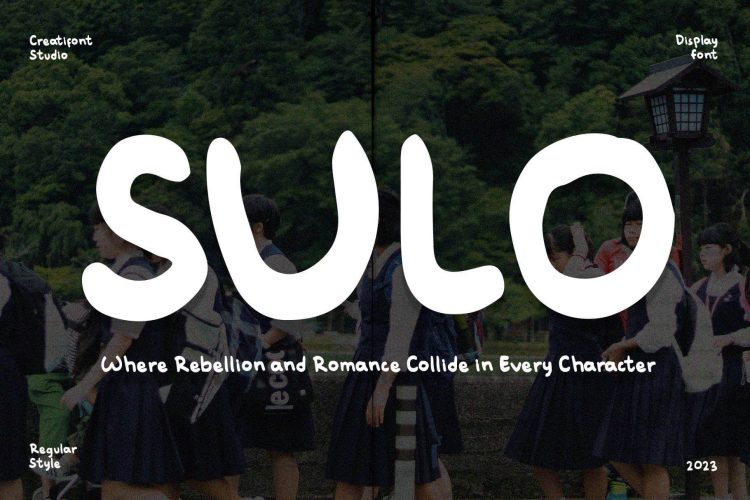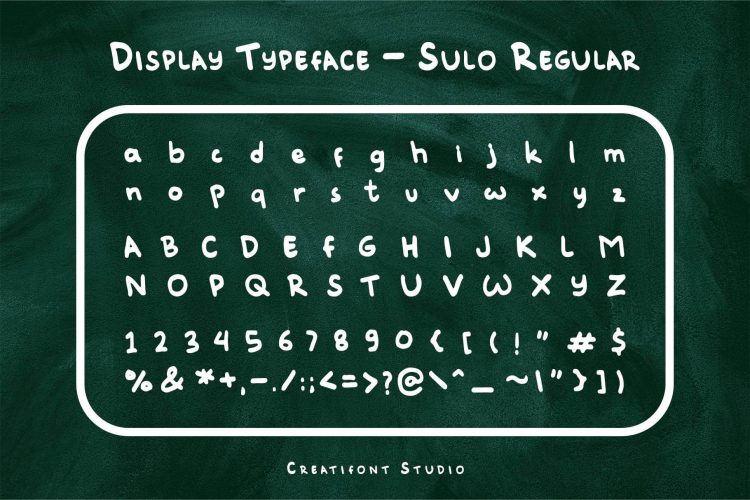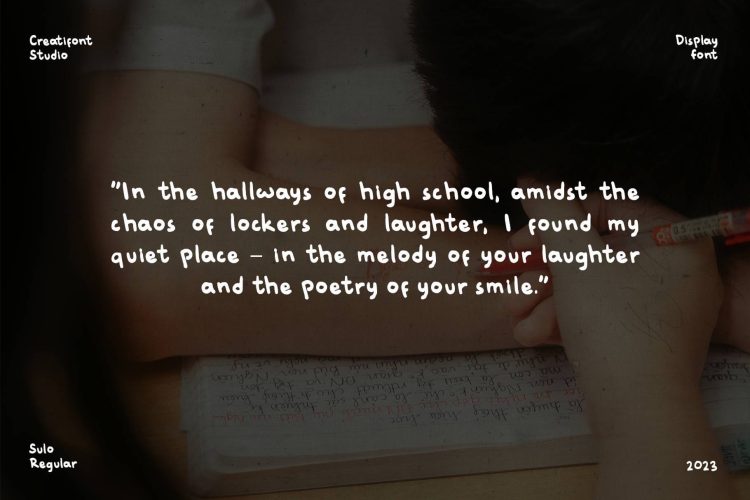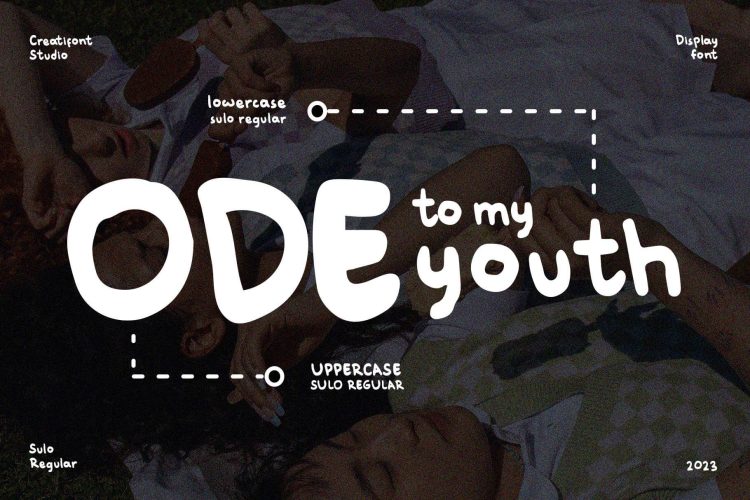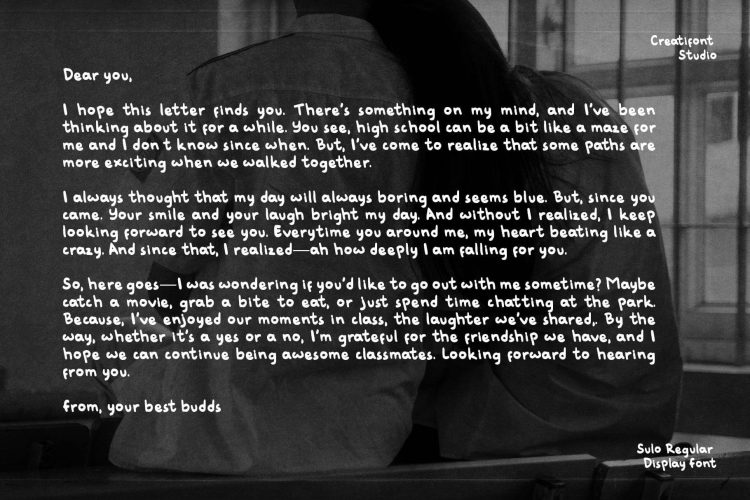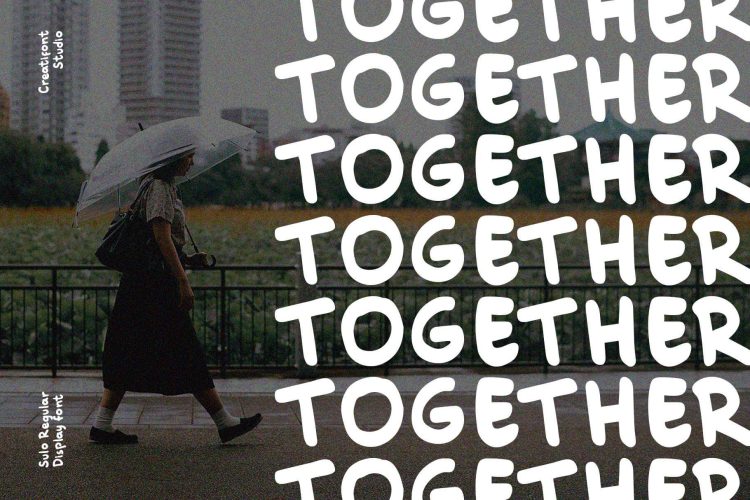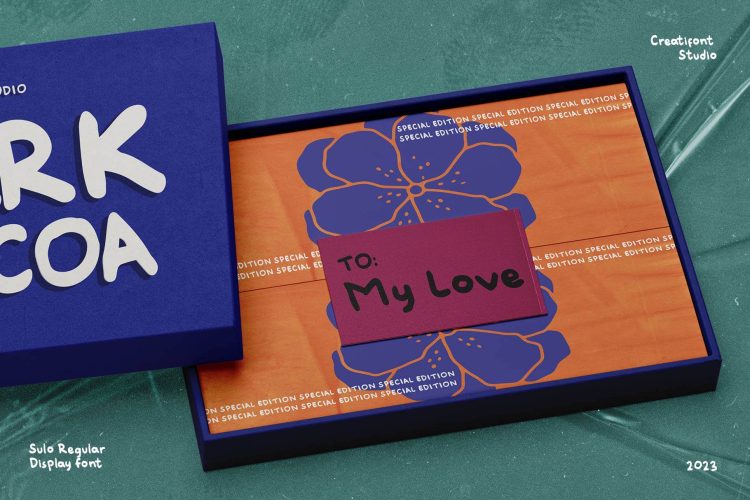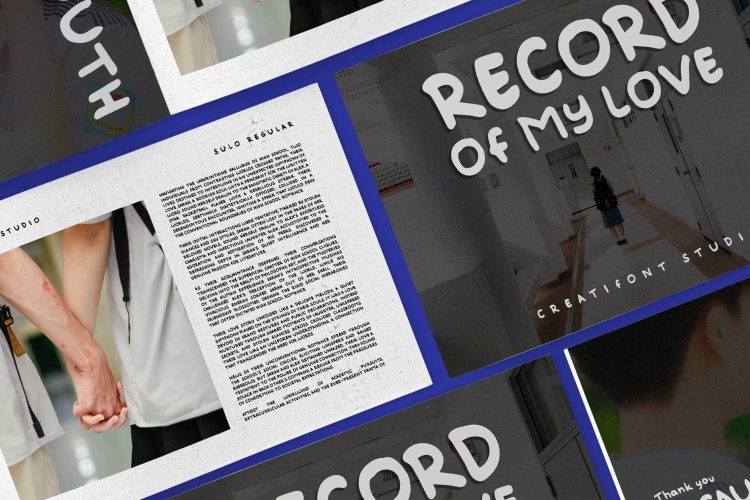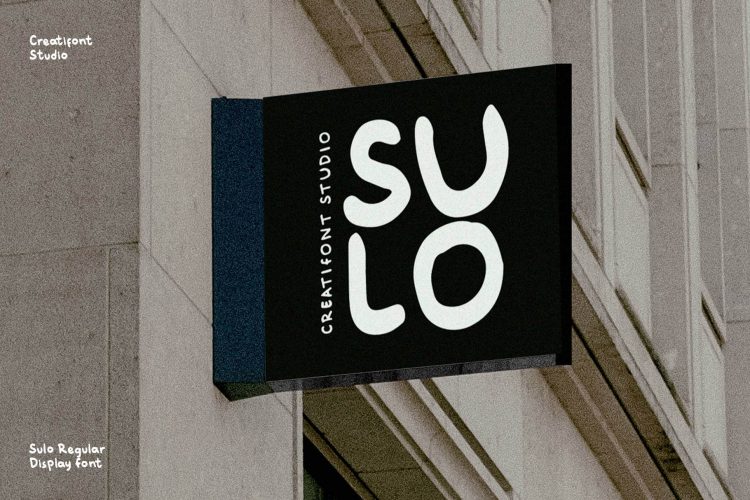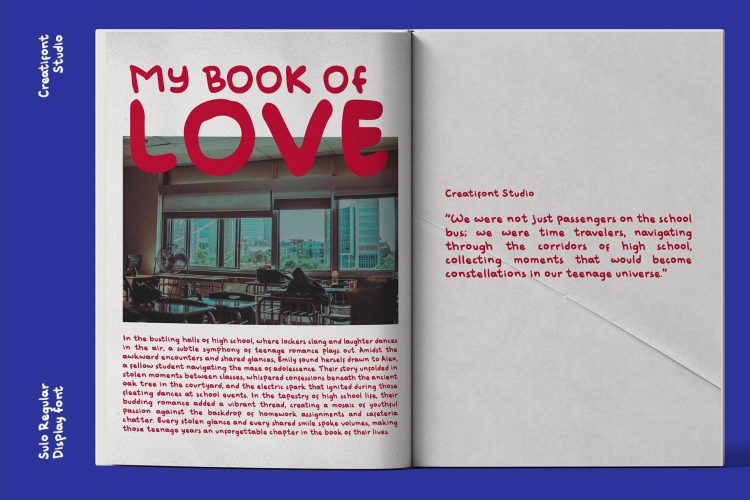
Sulo is a font that represent a bold and daring statement in handwriting style that exudes freedom and captures the playful, joyful spirit of the youth. With its bold strokes and carefree design, Sulo perfectly represents the exuberance and creativity of the younger generation. This font is a celebration of liberation, offering a sense of freedom and unconventionality. Ideal for large-scale displays, Sulo’s intricate details and curves are showcased perfectly, adding a touch of personality and vibrancy to any project. Embrace the bold and carefree essence of Sulo to infuse your designs with youthful energy and a sense of joy that truly stands out.